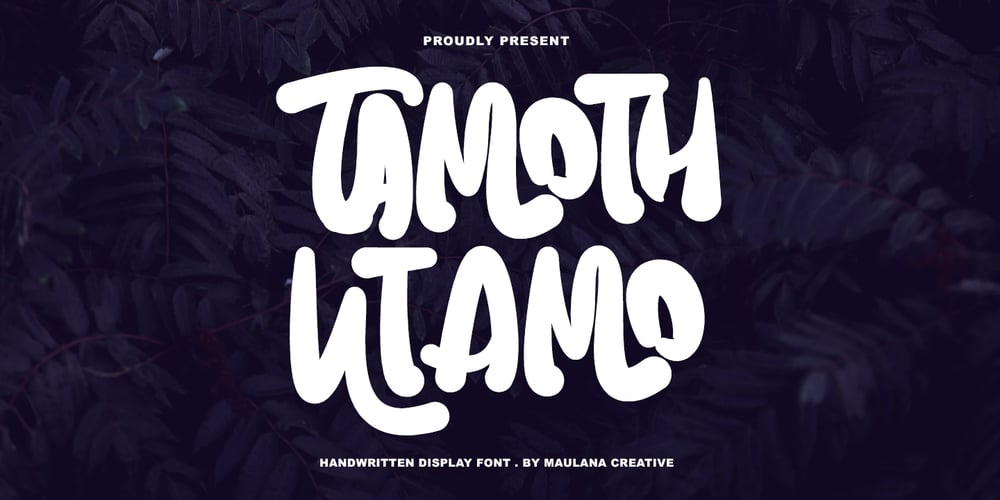
MC Tamoth Utamo Font Family was designed by Gilang Maulana and published by Maulana Creative. MC Tamoth Utamo contains 1 styles and family package options. Tamoth Utamo handwritten display font. This font is good for logo design, Social media, Movie Titles, Books Titles, a short text even a long text letter and good for your secondary text font with signature or script typeface. Make a stunning work with Tamoth Utamo handwritten display font.Cheers,Maulana Creative